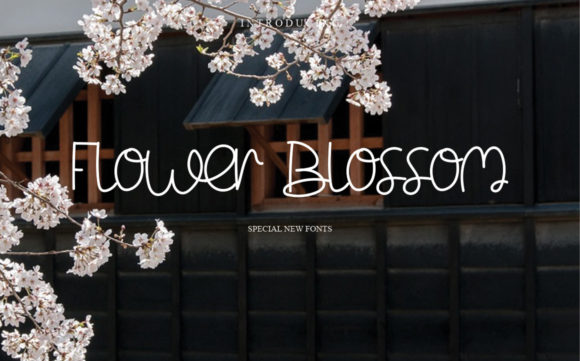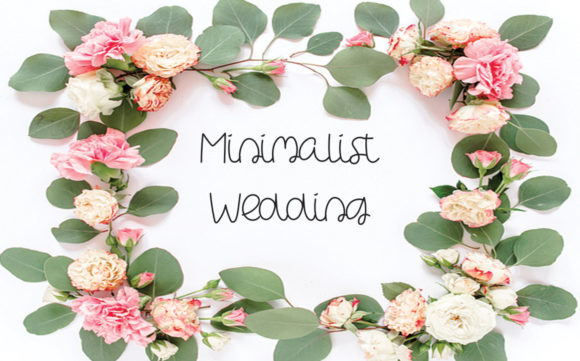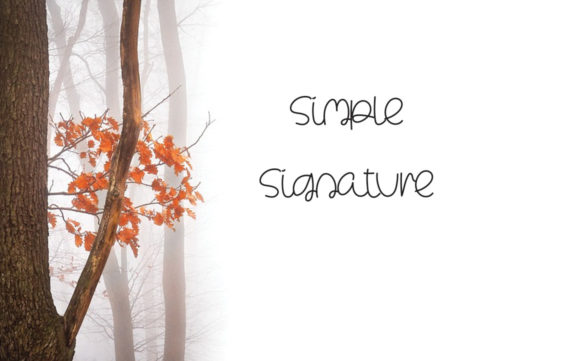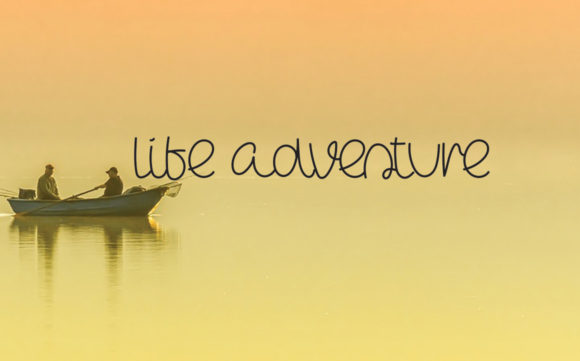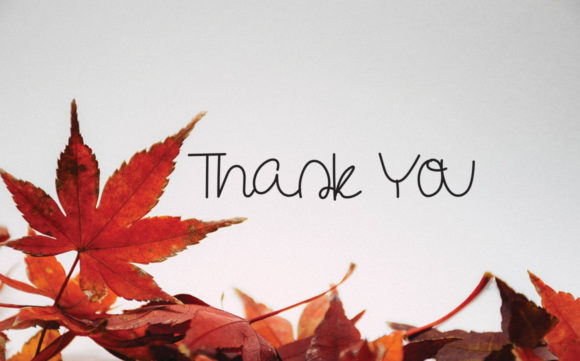
Flower Blossom Font
About Flower Blossom Font
Flower Blossom is a delightful and charming handwritten font that adds a touch of cuteness and simplicity to your designs. With its authentic and handcrafted look, this font is perfect for creating chalkboard quotes, teaching materials, or any project that requires a personal and realistic feel.
The whimsical and playful nature of Flower Blossom brings a sense of joy and lightheartedness to your designs. Whether you’re creating educational resources, greeting cards, social media posts, or any other project that needs a touch of charm, this font will help you convey your message with a delightful flair.
Embrace Flower Blossom confidently and notice how it adds personality and a personal touch to your designs. Its cute and simple letterforms create a visually appealing effect, making your creations stand out and capturing the attention of your audience.
Add Flower Blossom to your font collection and experience its impact on your designs. Watch as it brings a sense of whimsy and authenticity, making your creative ideas bloom. Let Flower Blossom be the font that adds a touch of sweetness and realism to your projects, making them even more captivating and endearing.